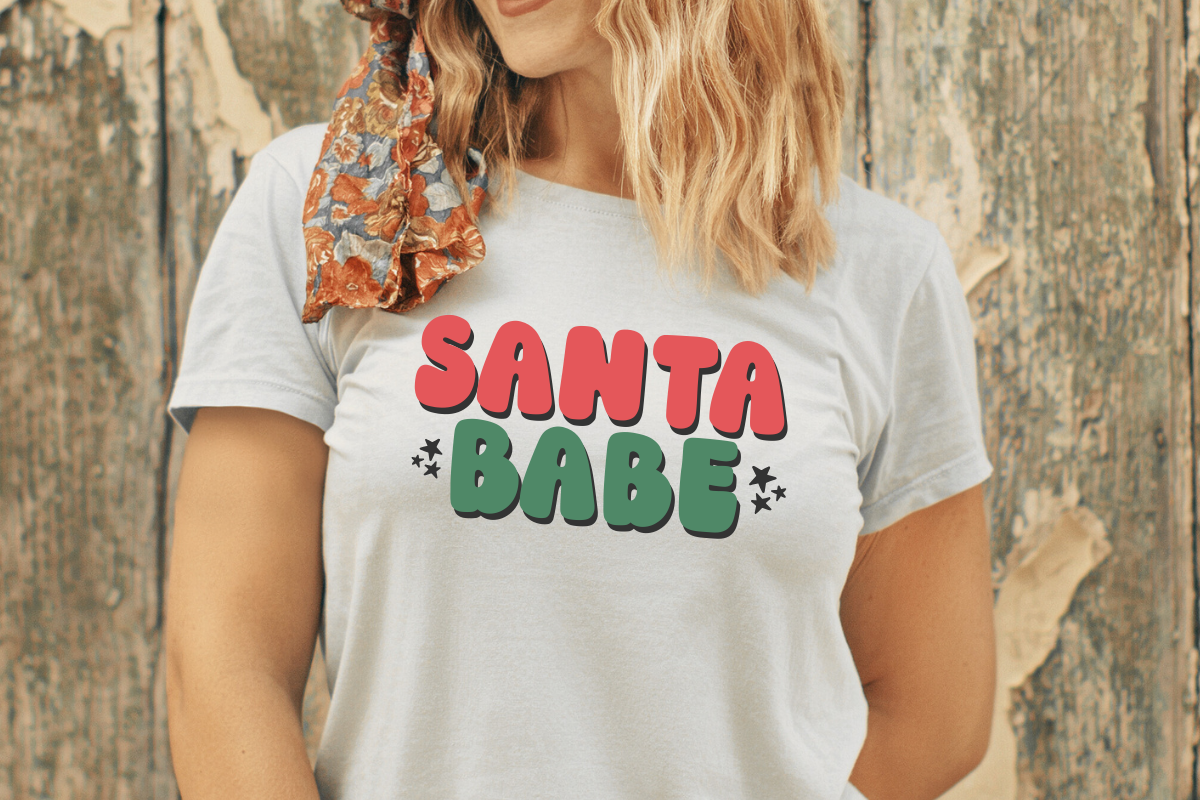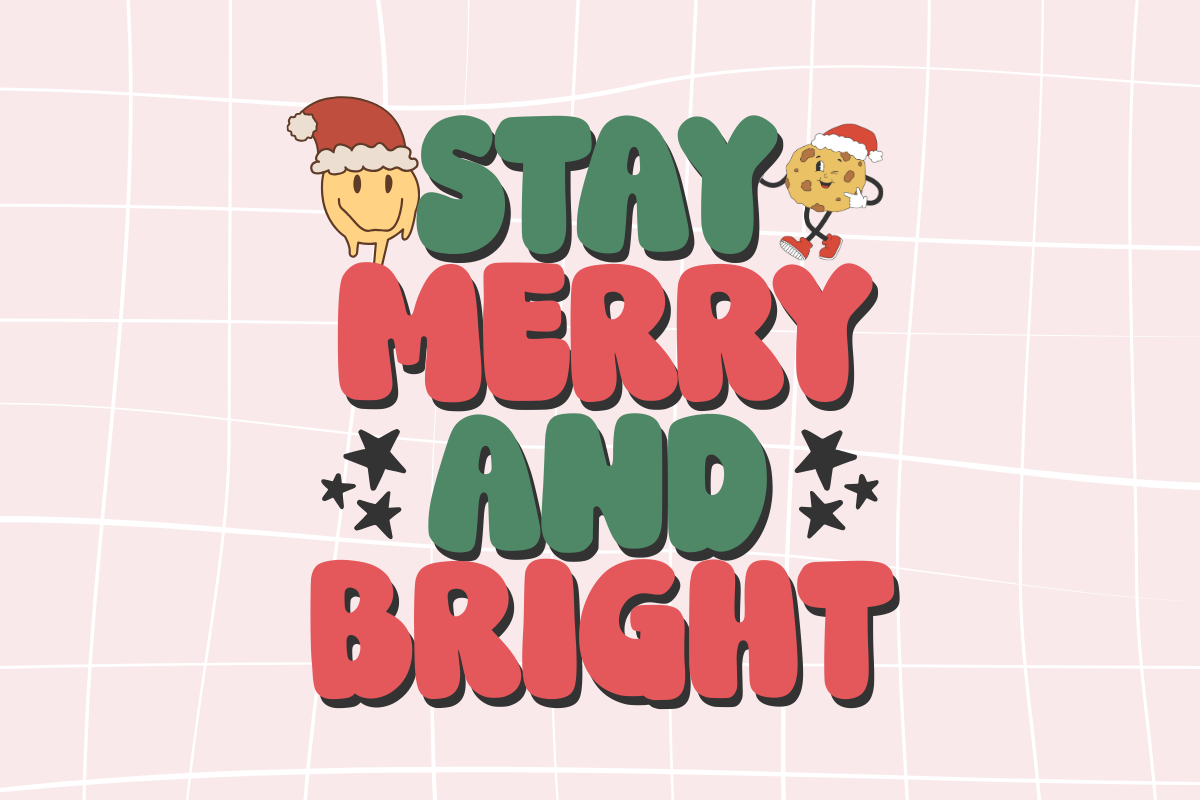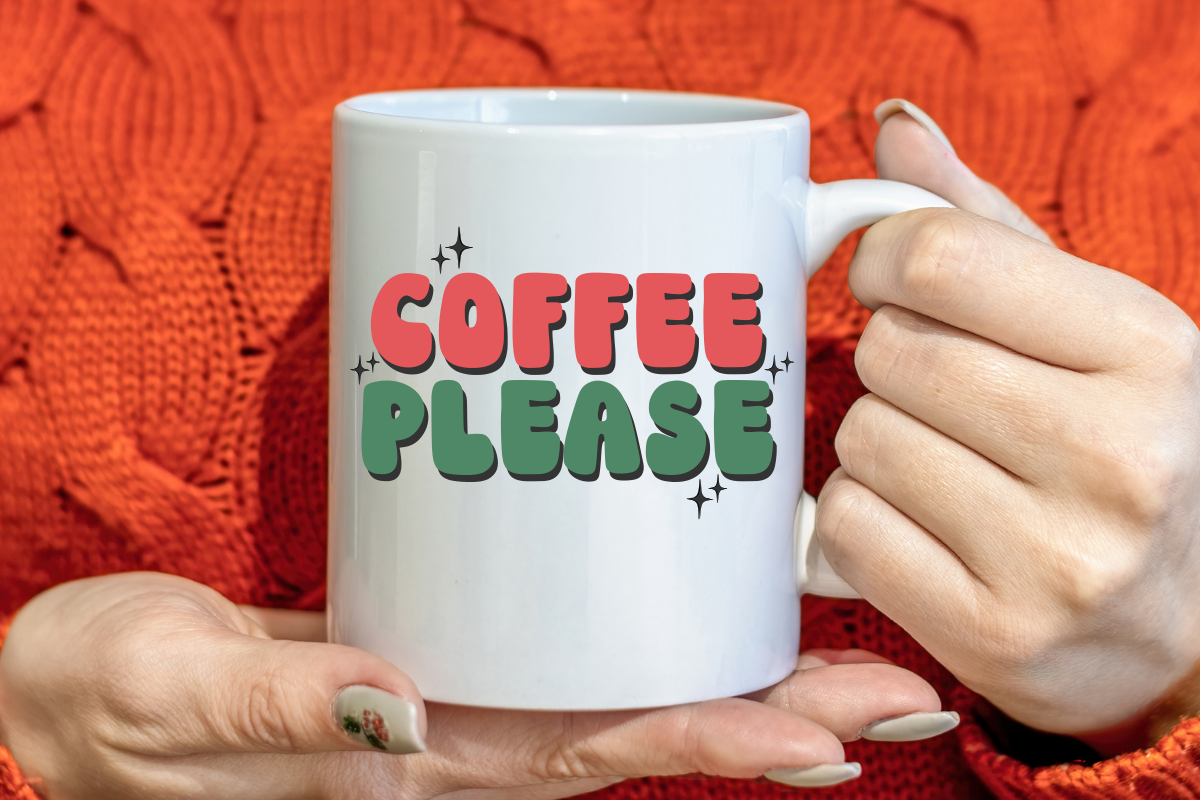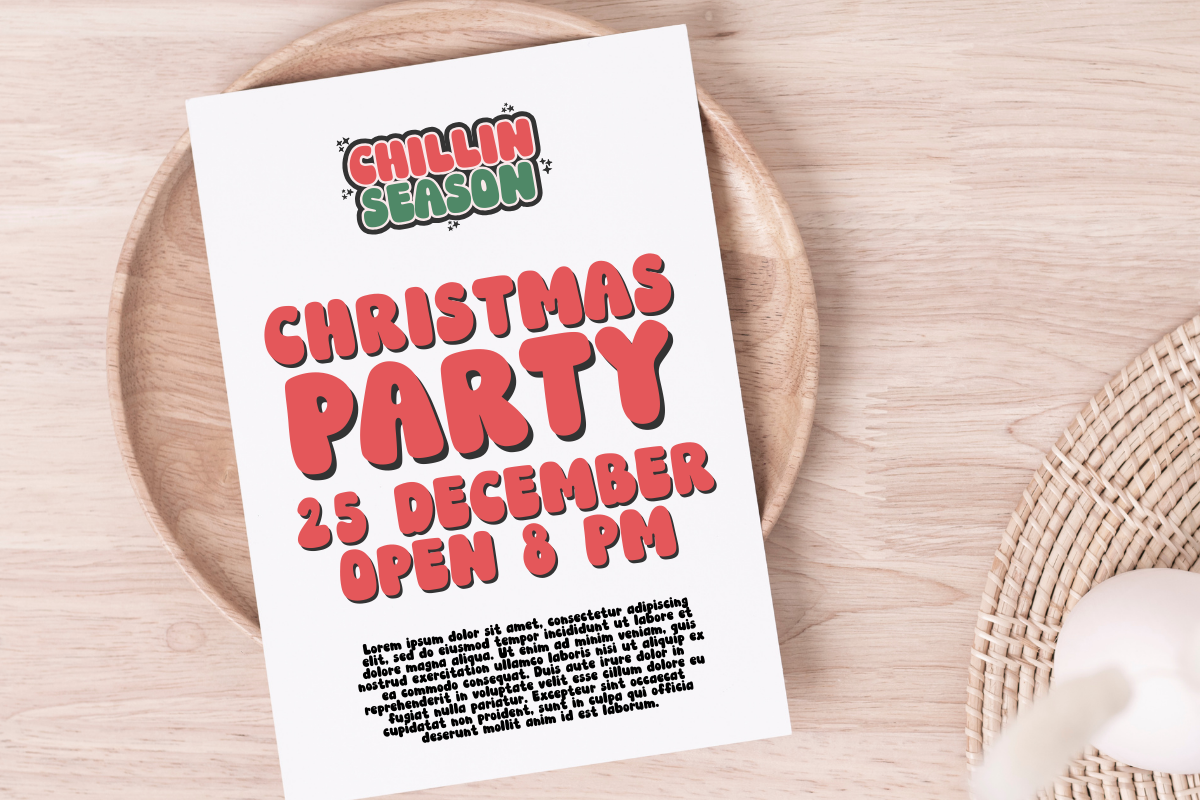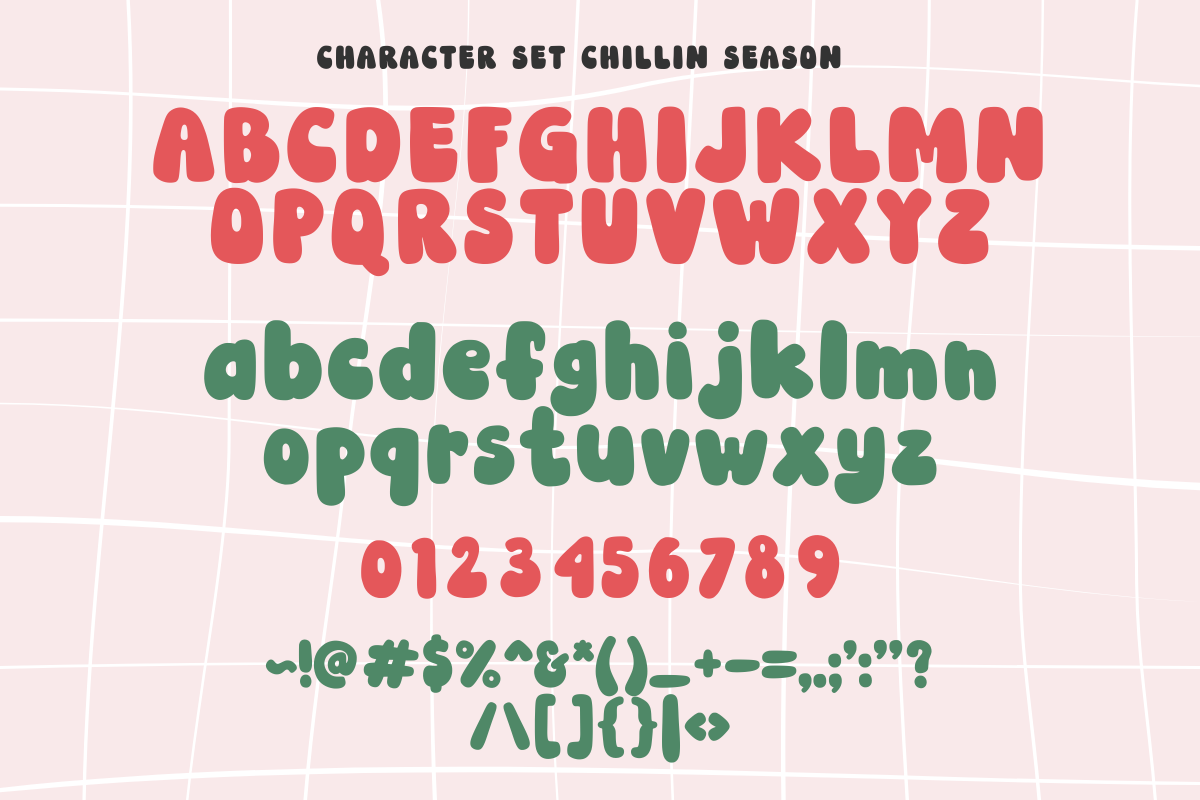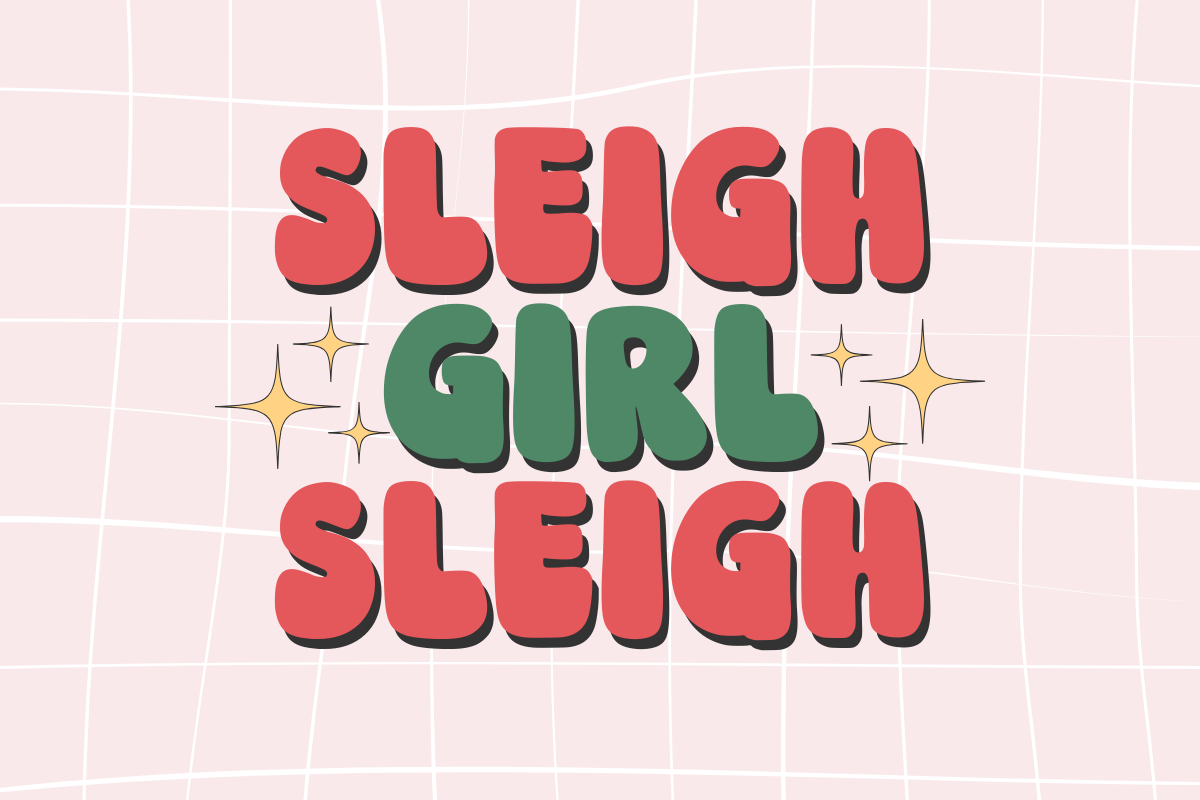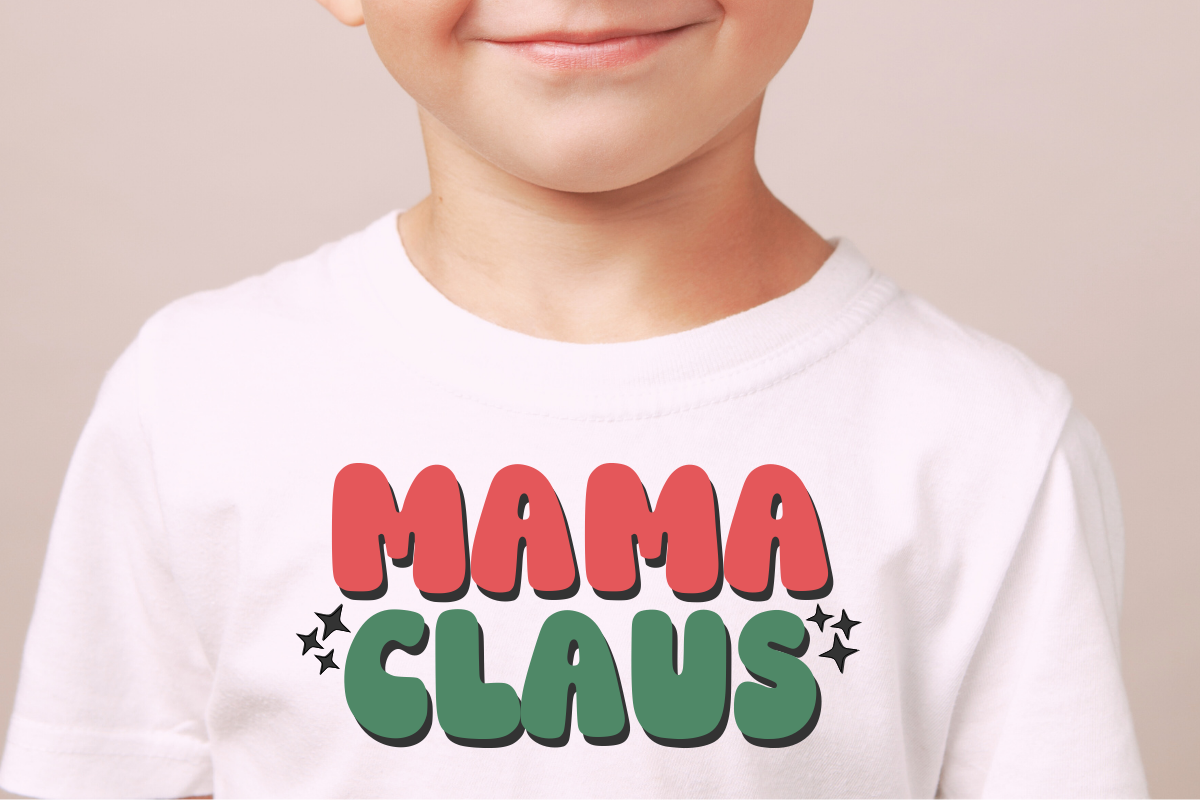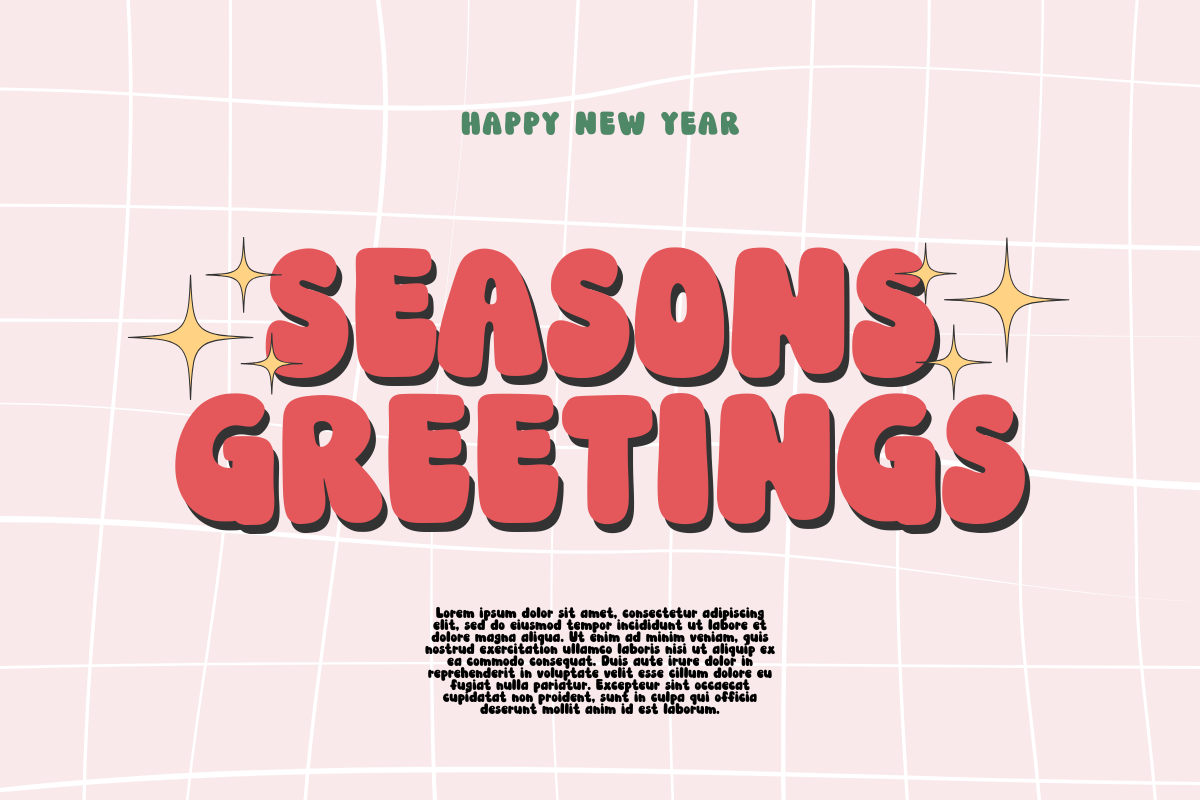
Chillin Season
Introducing Chillin Season, a nostalgic nod to the charm of yesteryears, seamlessly combined with the festive cheer of Christmas. This stylish font is an excellent choice for penning sentimental quotes, fashioning eye-catching t-shirts, designing distinctive tote bags, creating warm greeting cards, or adding a special touch to your favorite mugs. It infuses any design with a playful yet aesthetically pleasing allure, making Chillin Season a perfect blend of whimsy and style for any fun-approved project.